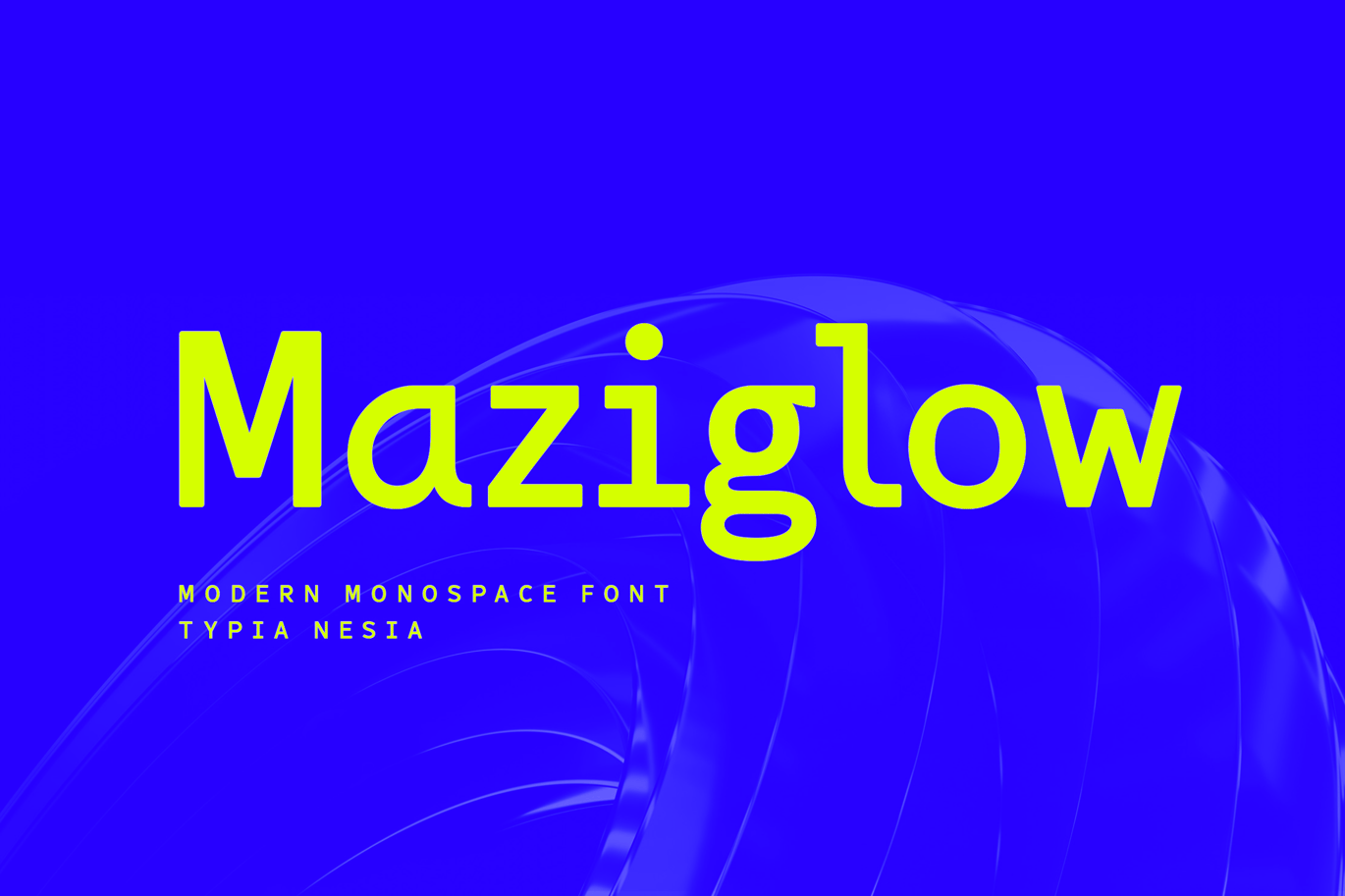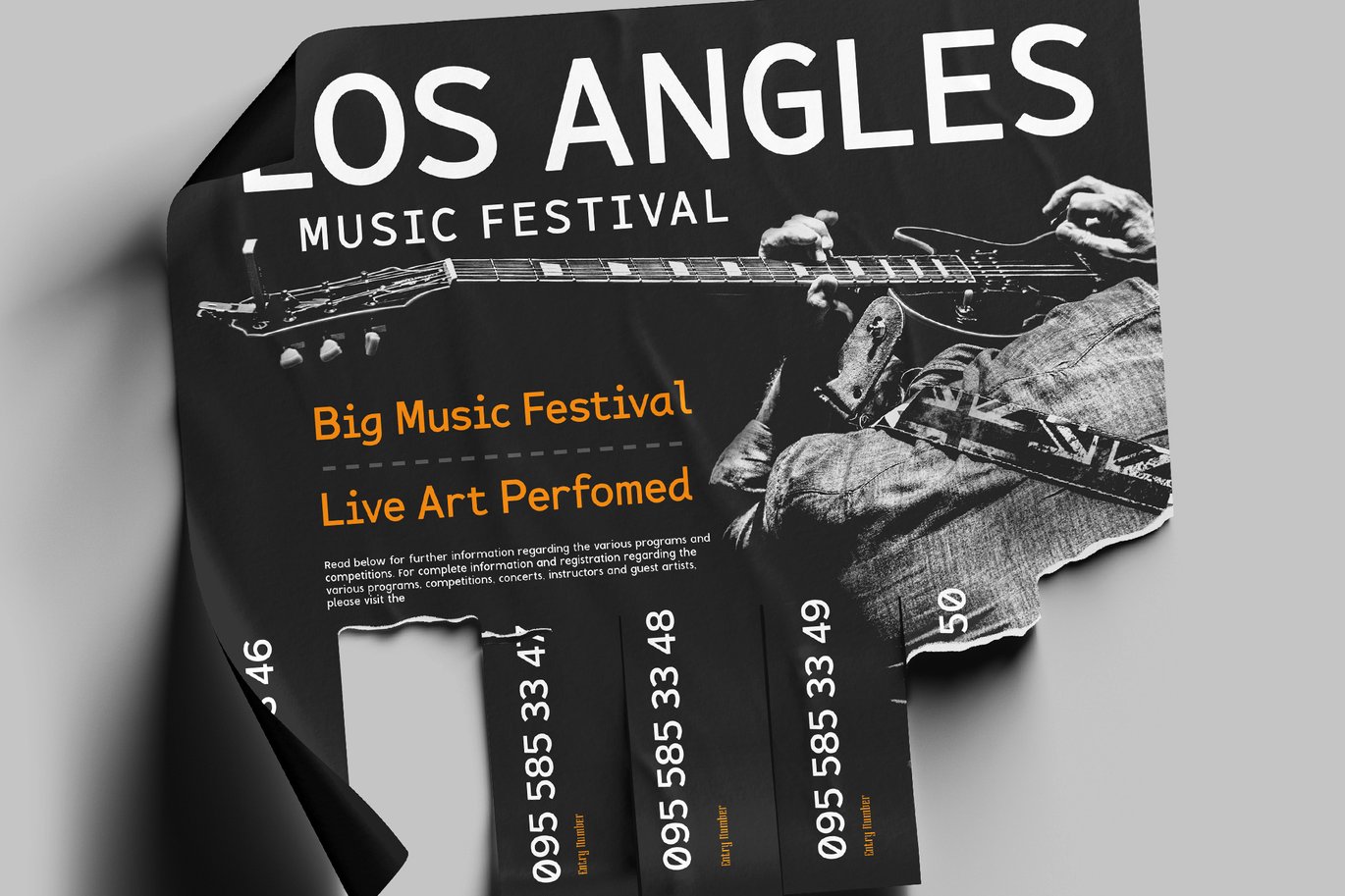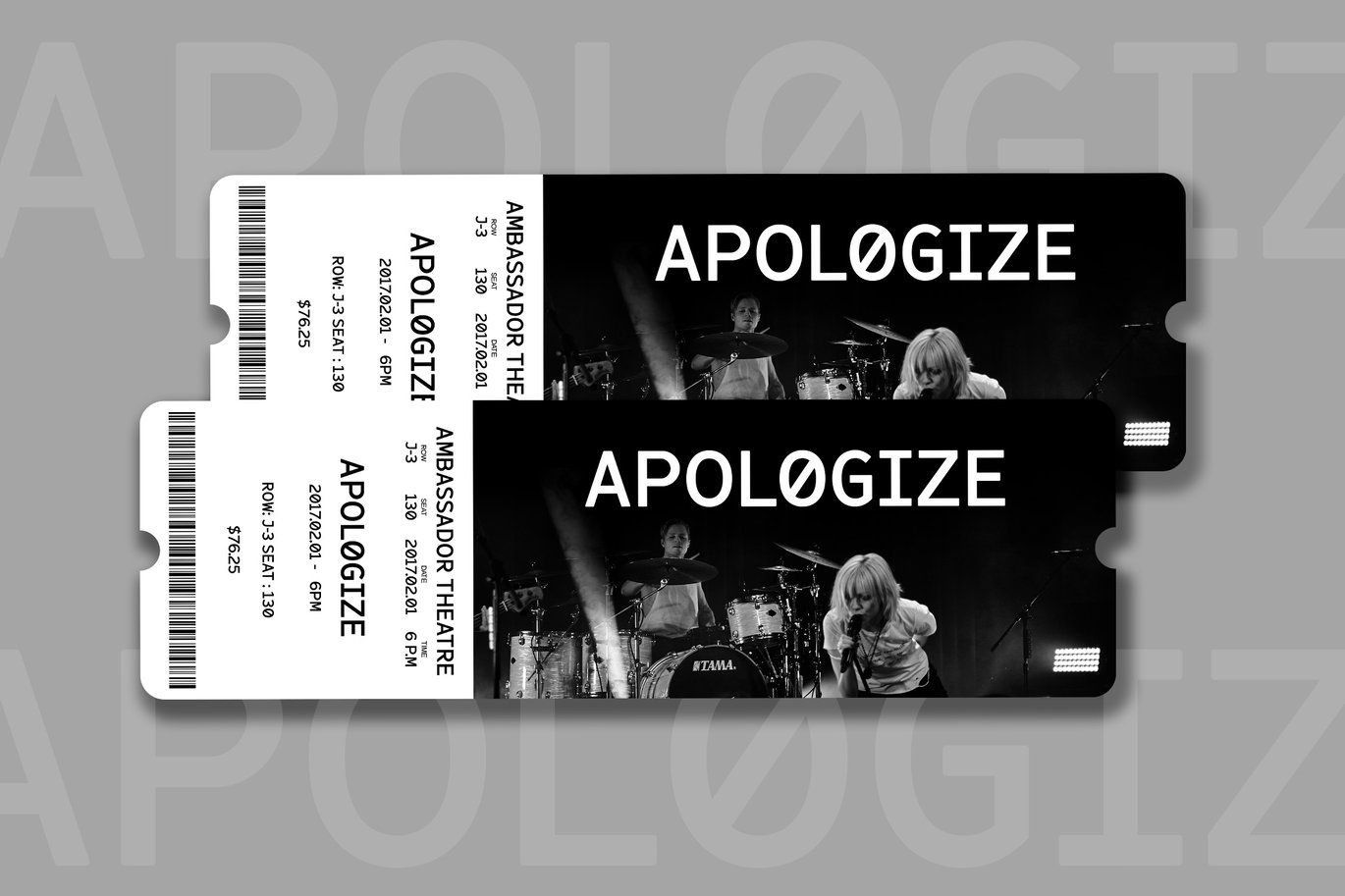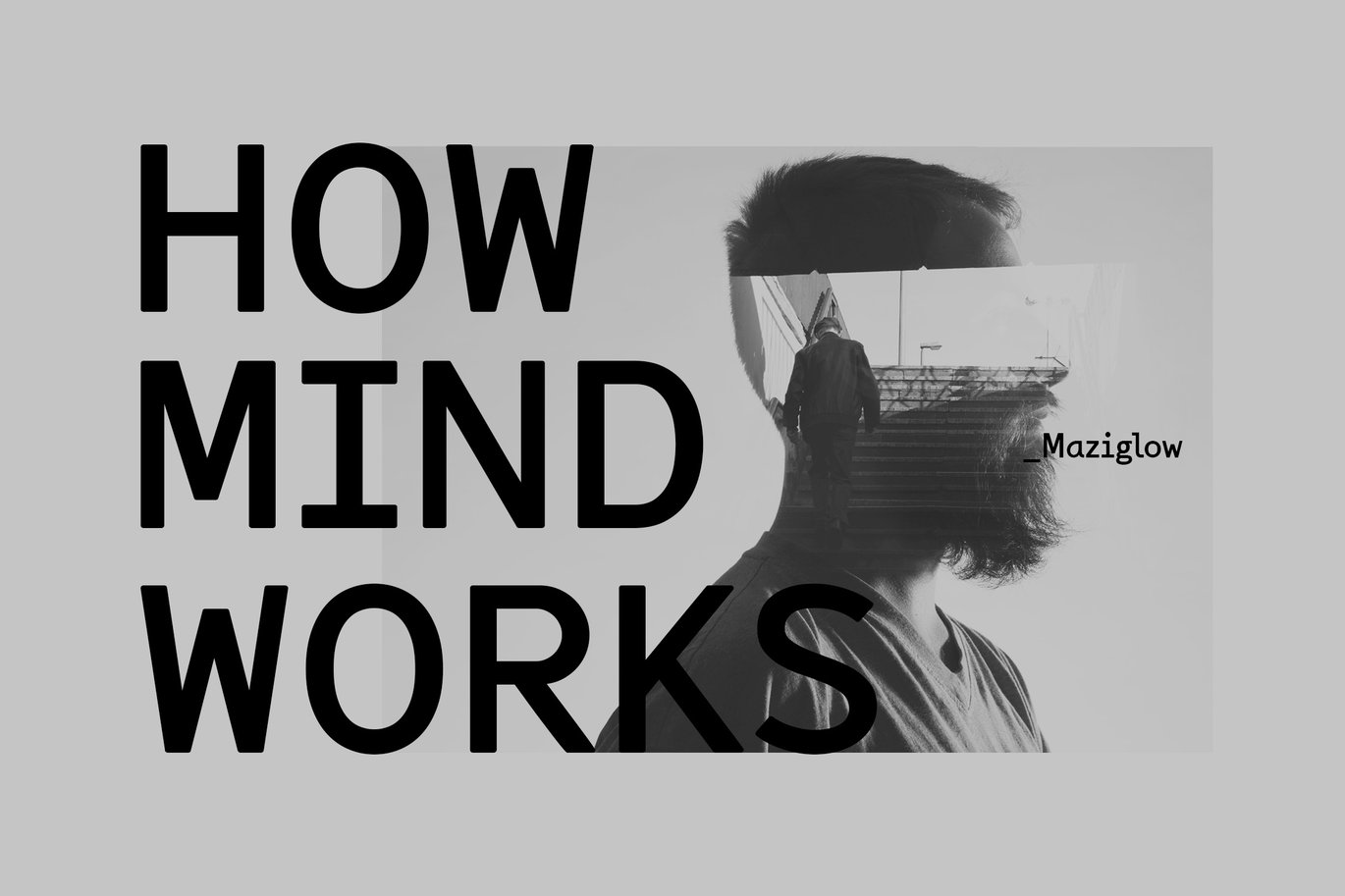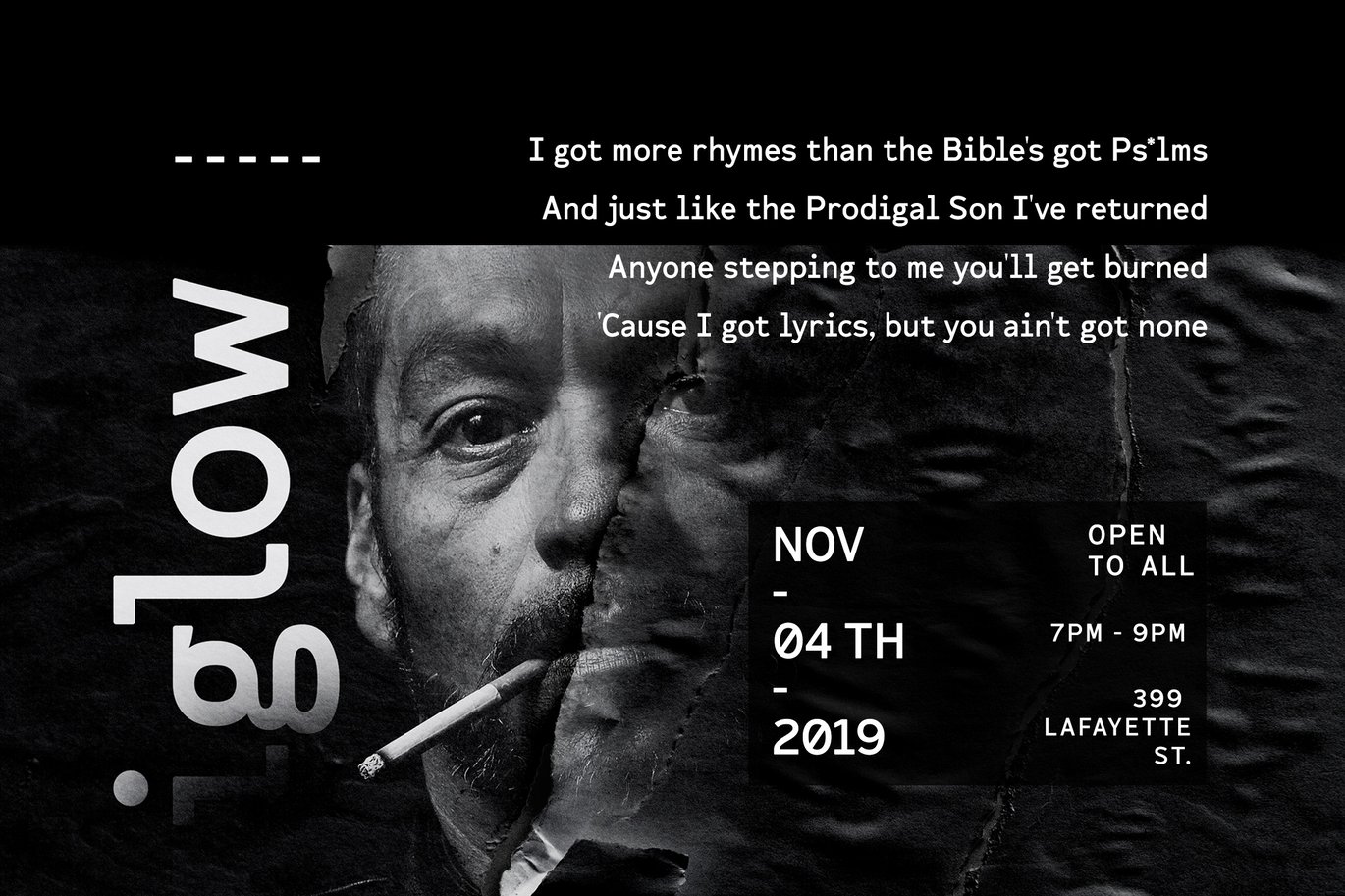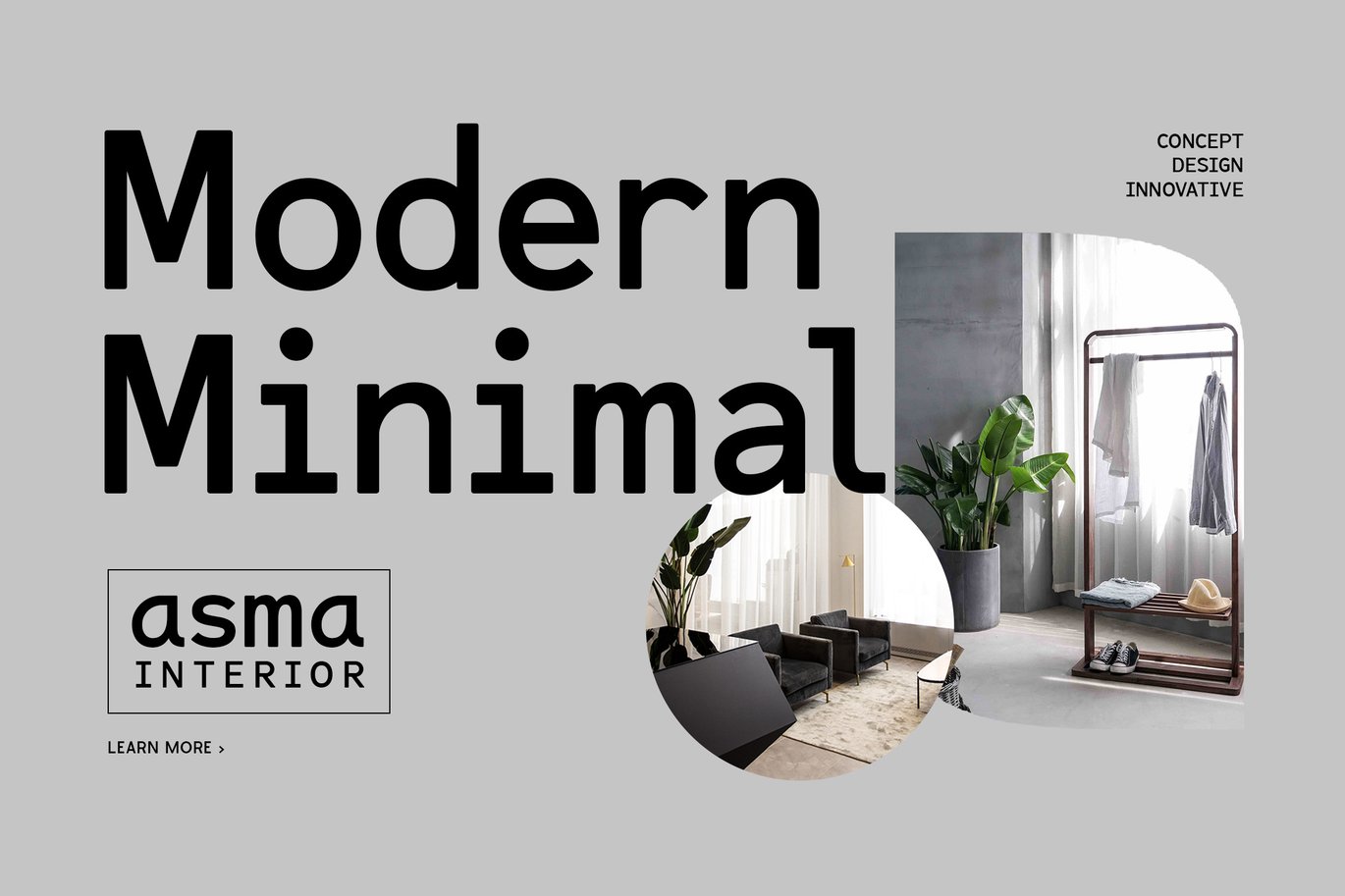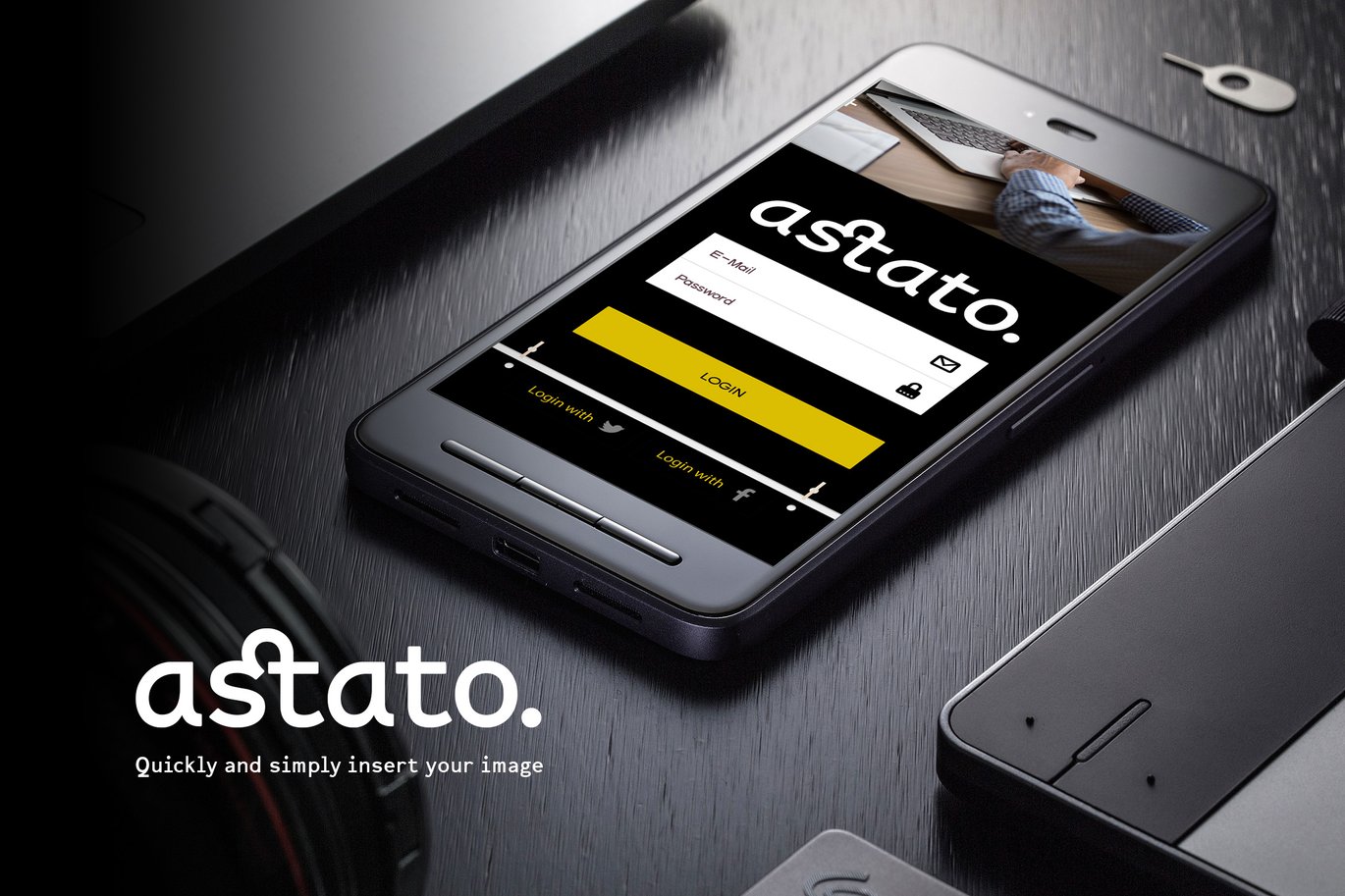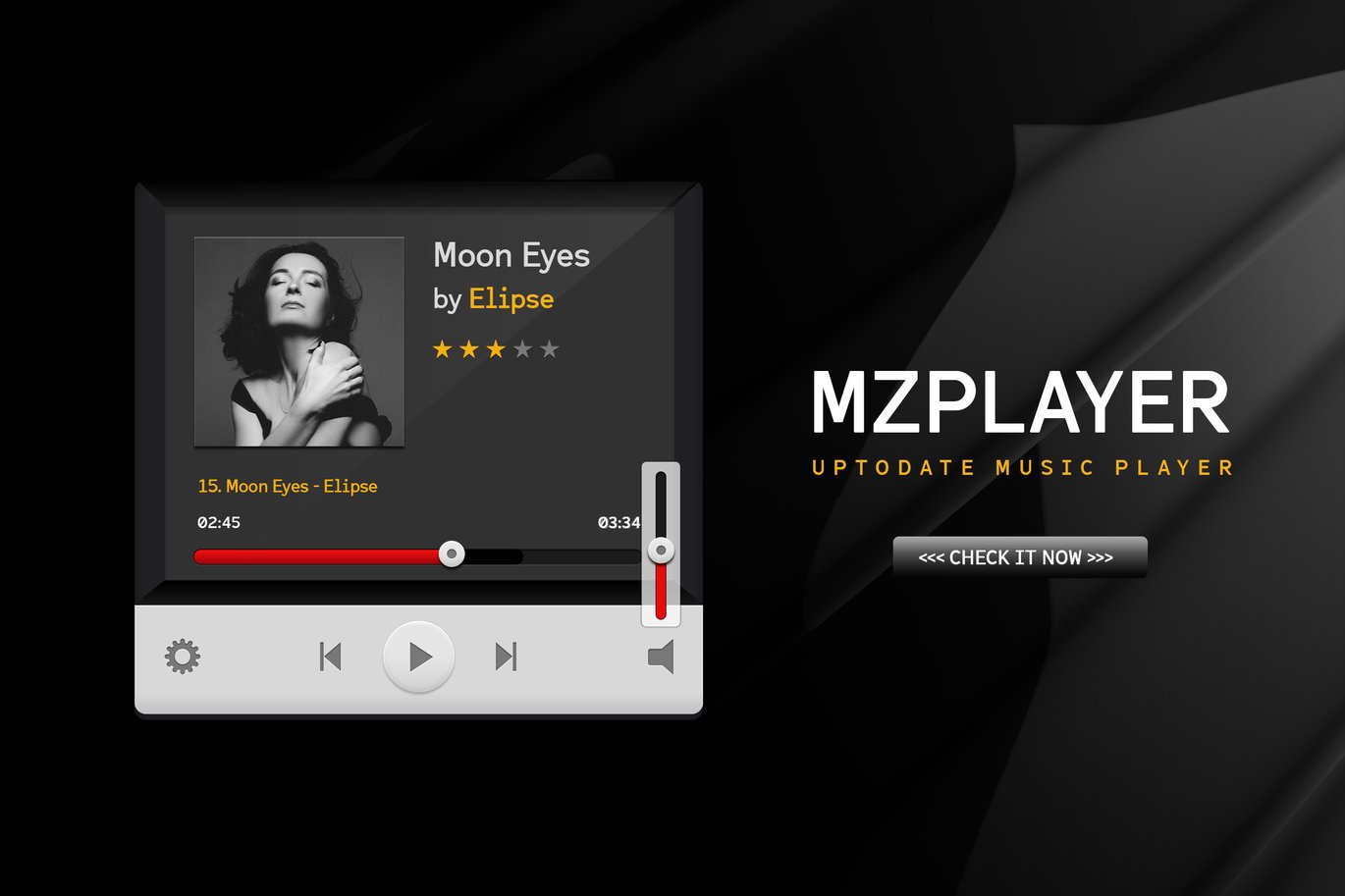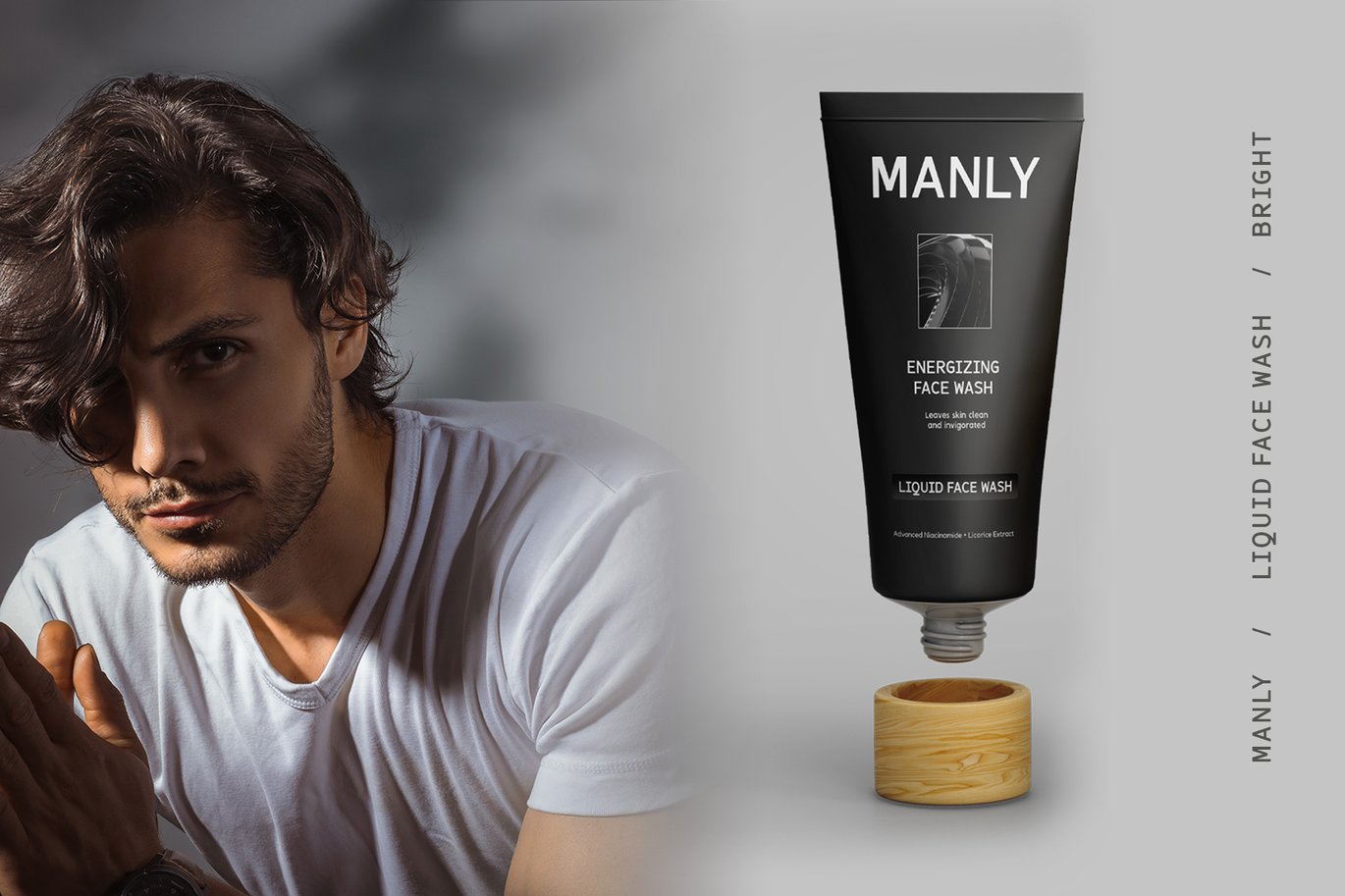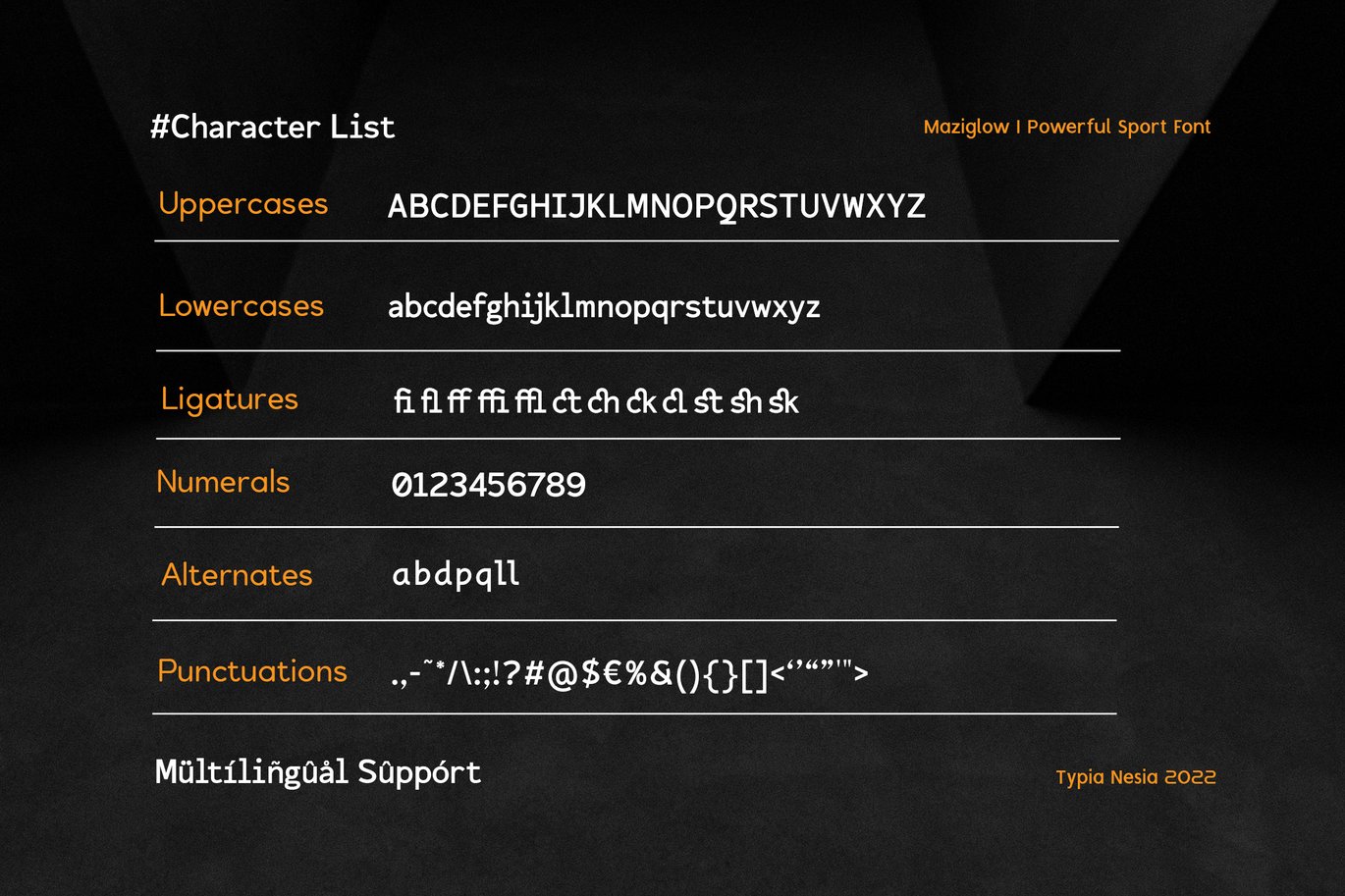
Maziglow – Modern Monospace Sans Serif Font
Maziglow – Modern Monospace Sans Serif Font – Vintage Classic Typewriter Sans Font
Maziglow Monospace Sans Font is perfect for your up coming projects. Such as classic logo and branding, classic editorial design, magazine, fashion promotional, Ticket design, stationery design, blog design, advertising design, music, men skincare, art quote, home decor, book / novel cover title, special events and any more.